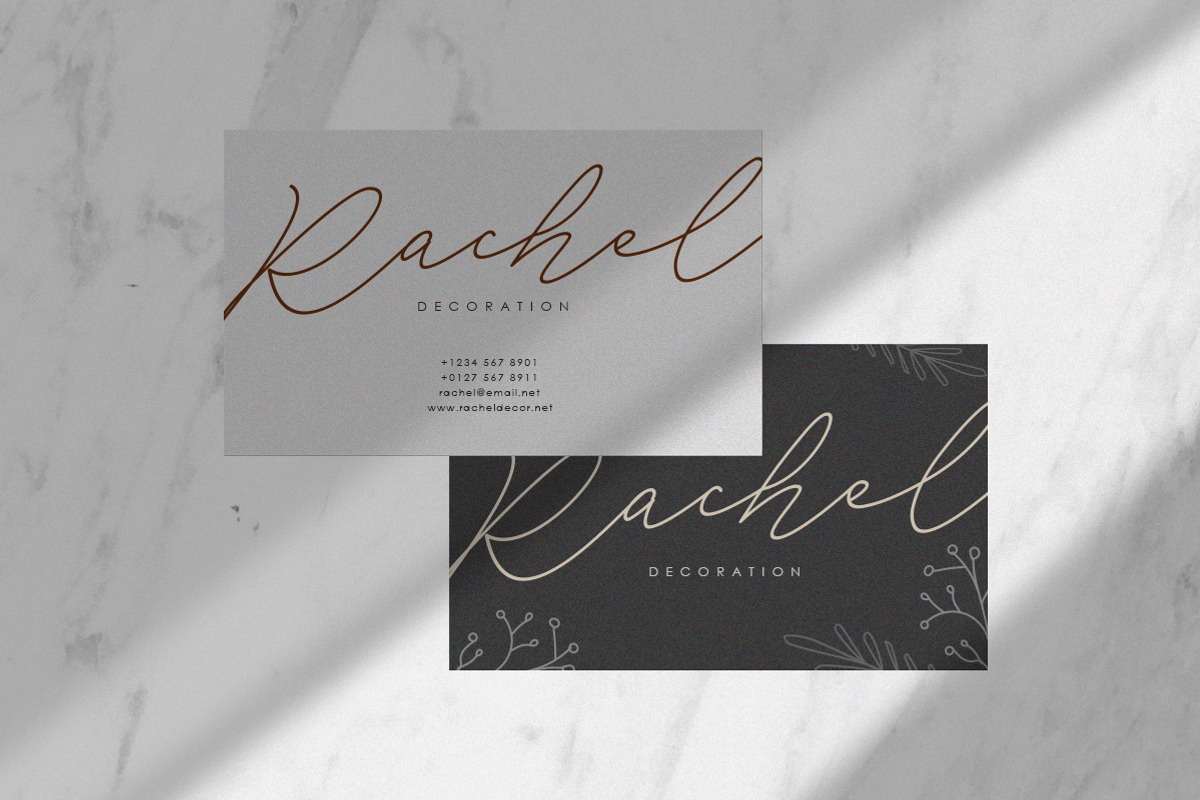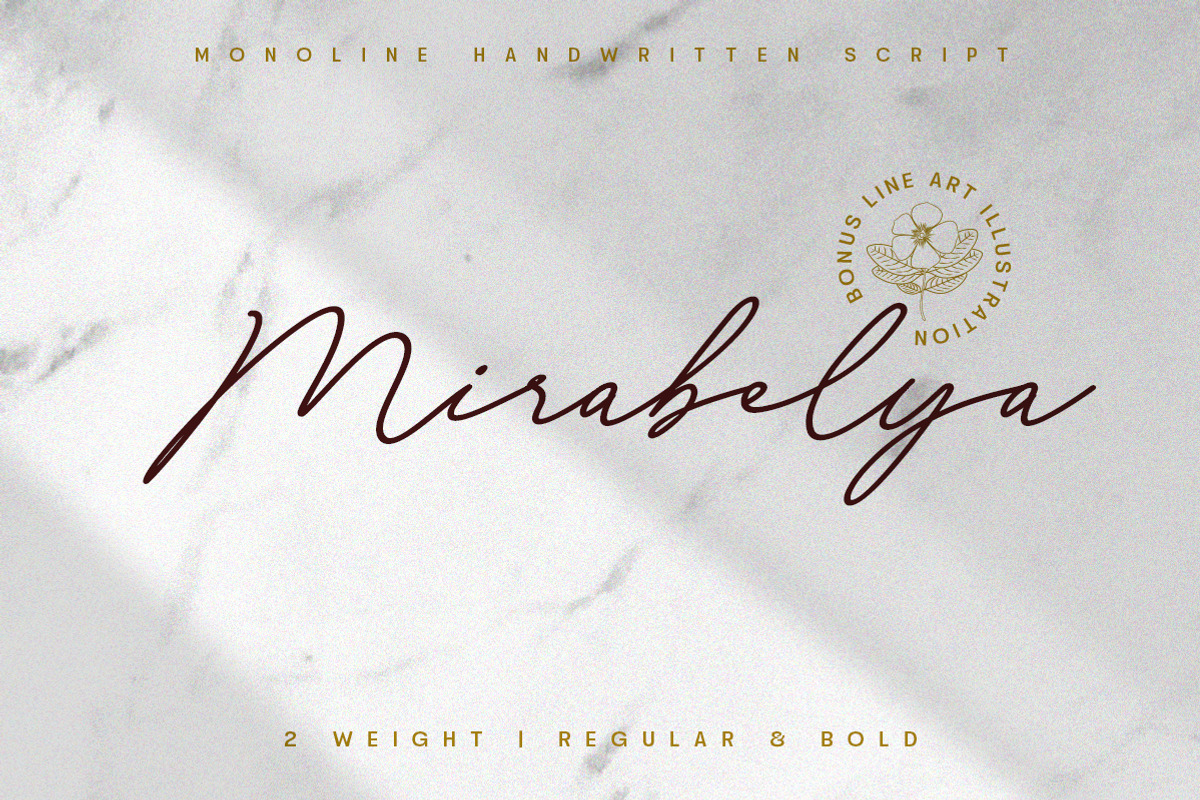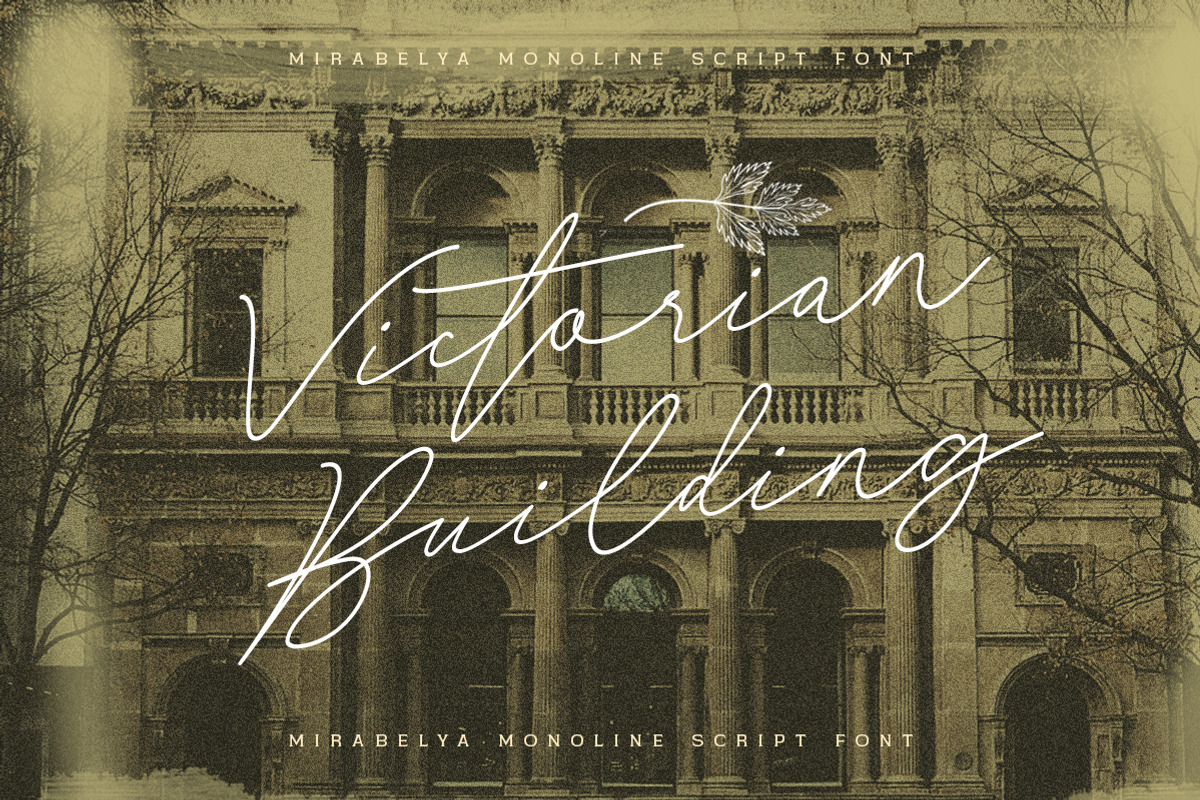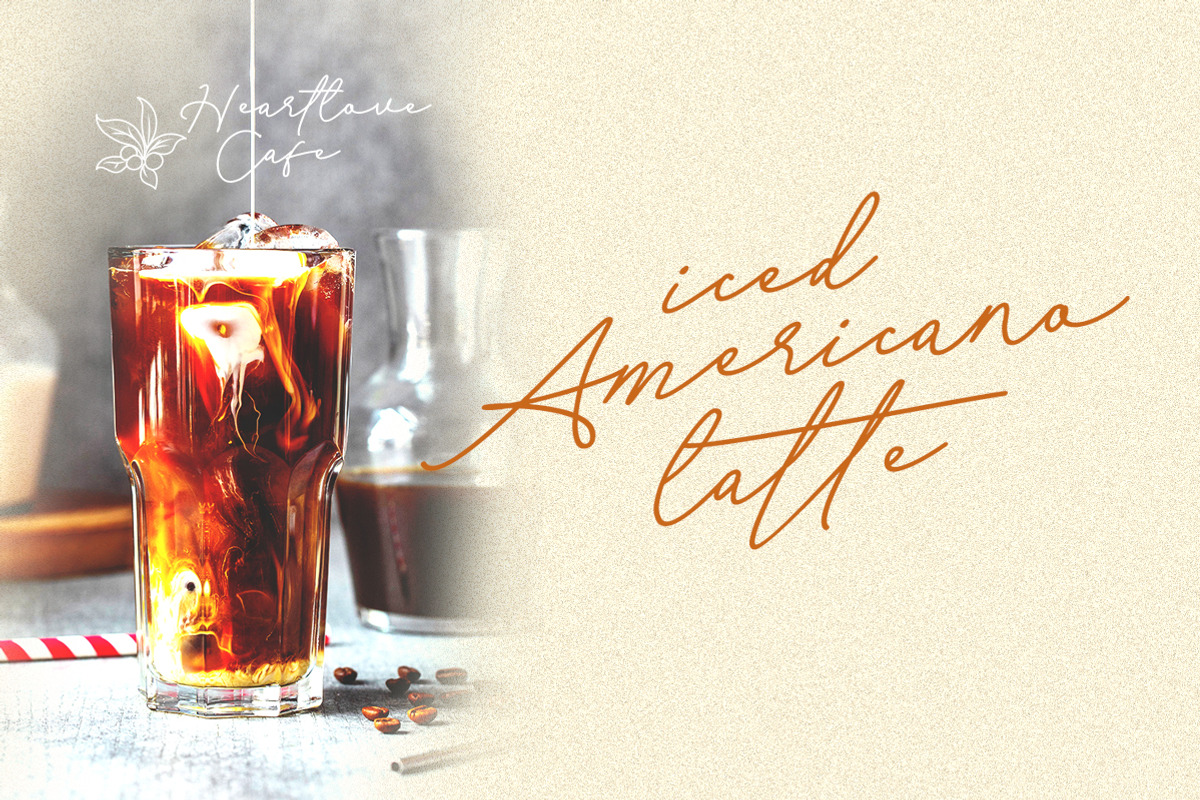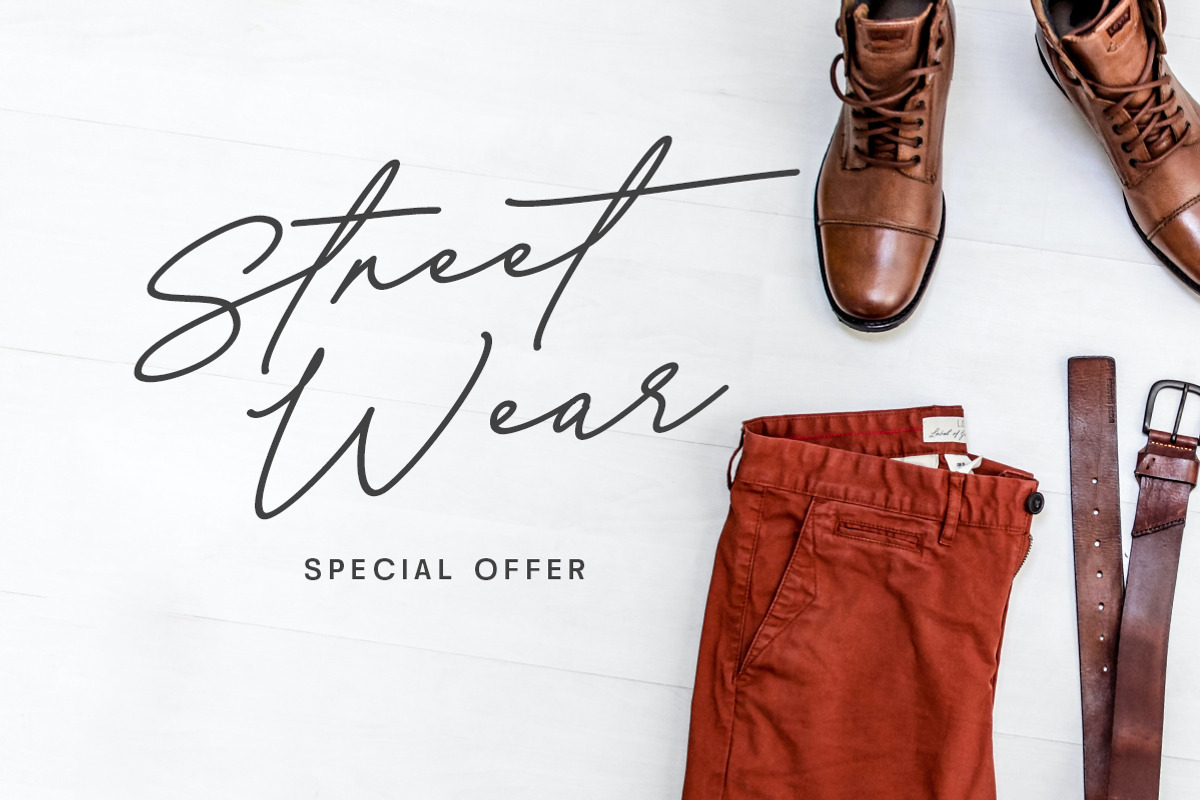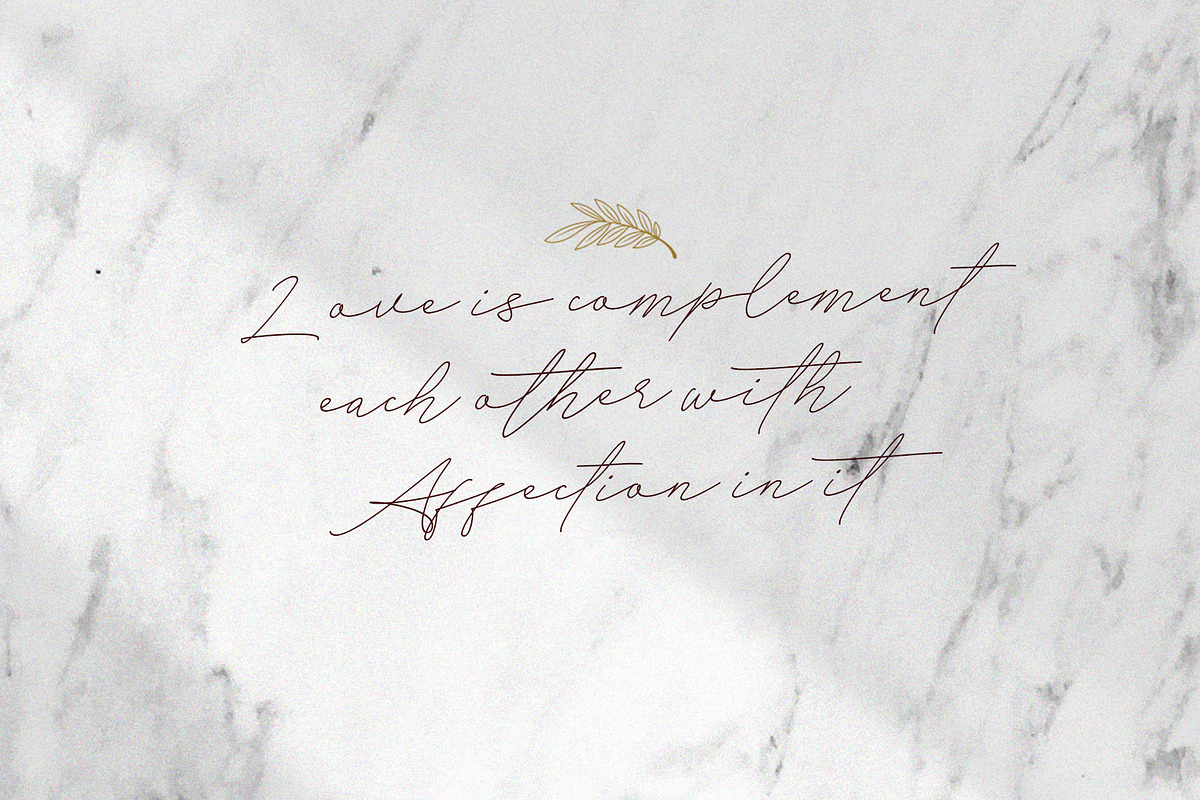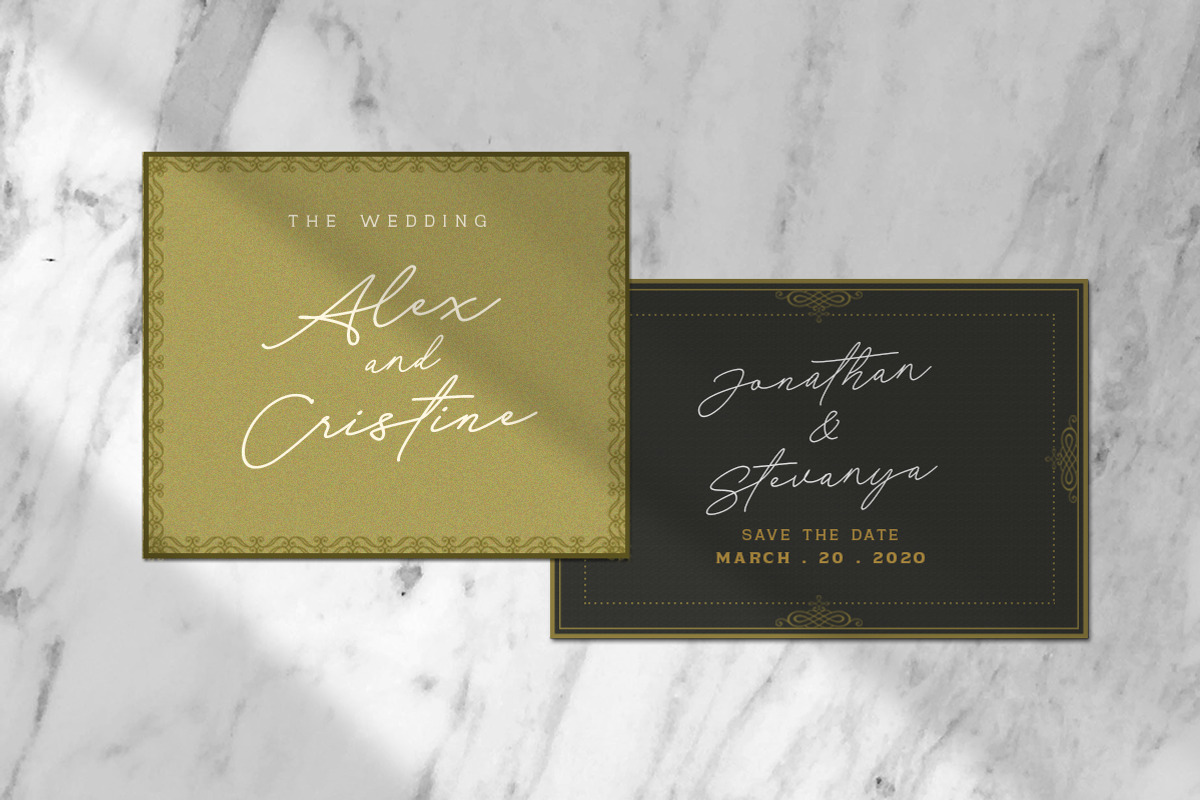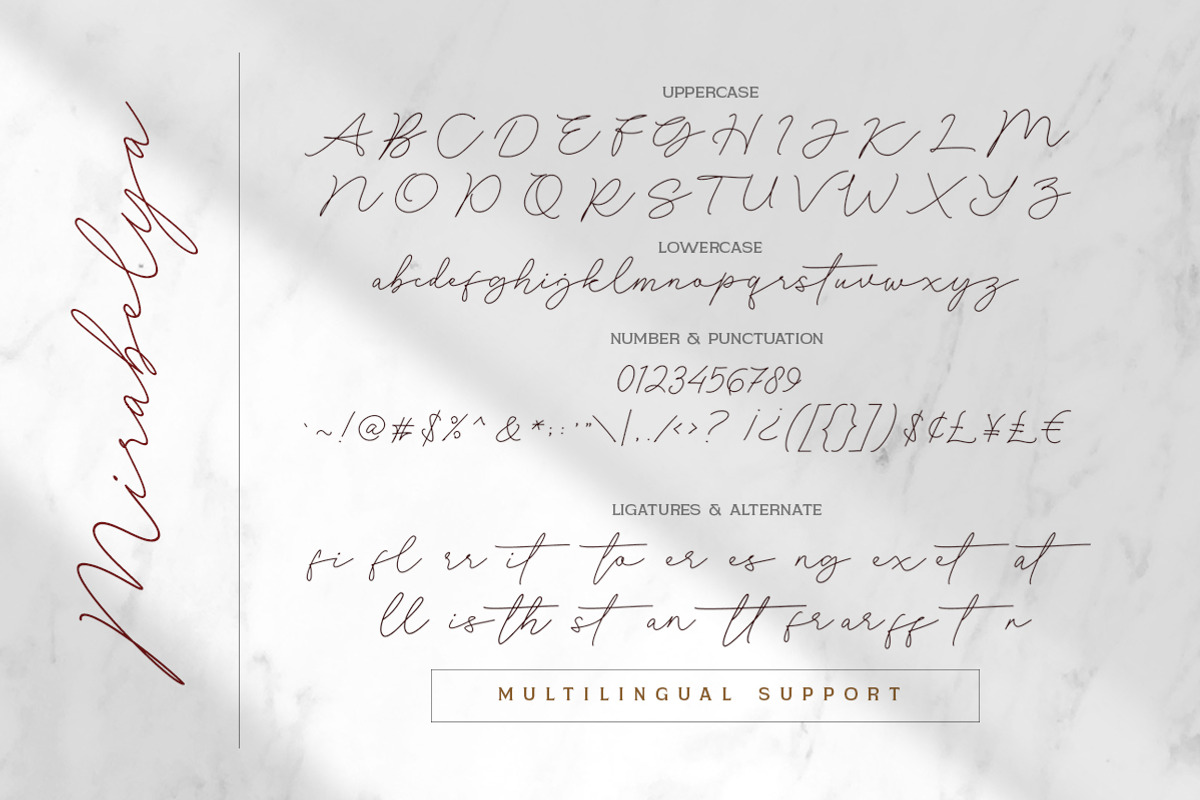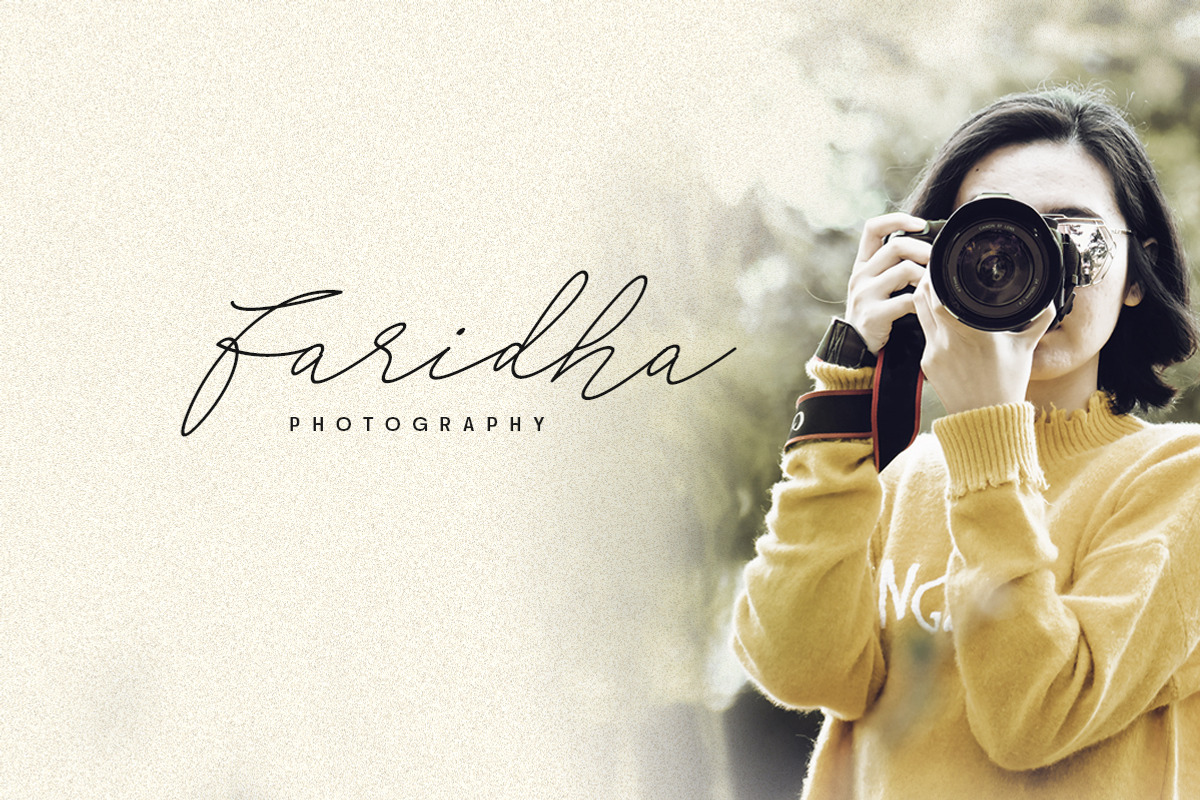
Mirabelya
Mirabelya is a sweet, soft hand-lettered handwritten font. Fall in love with its authentic feel and use it to create gorgeous wedding invitations, beautiful stationary art, eye-catching social media posts, and cute greeting cards.